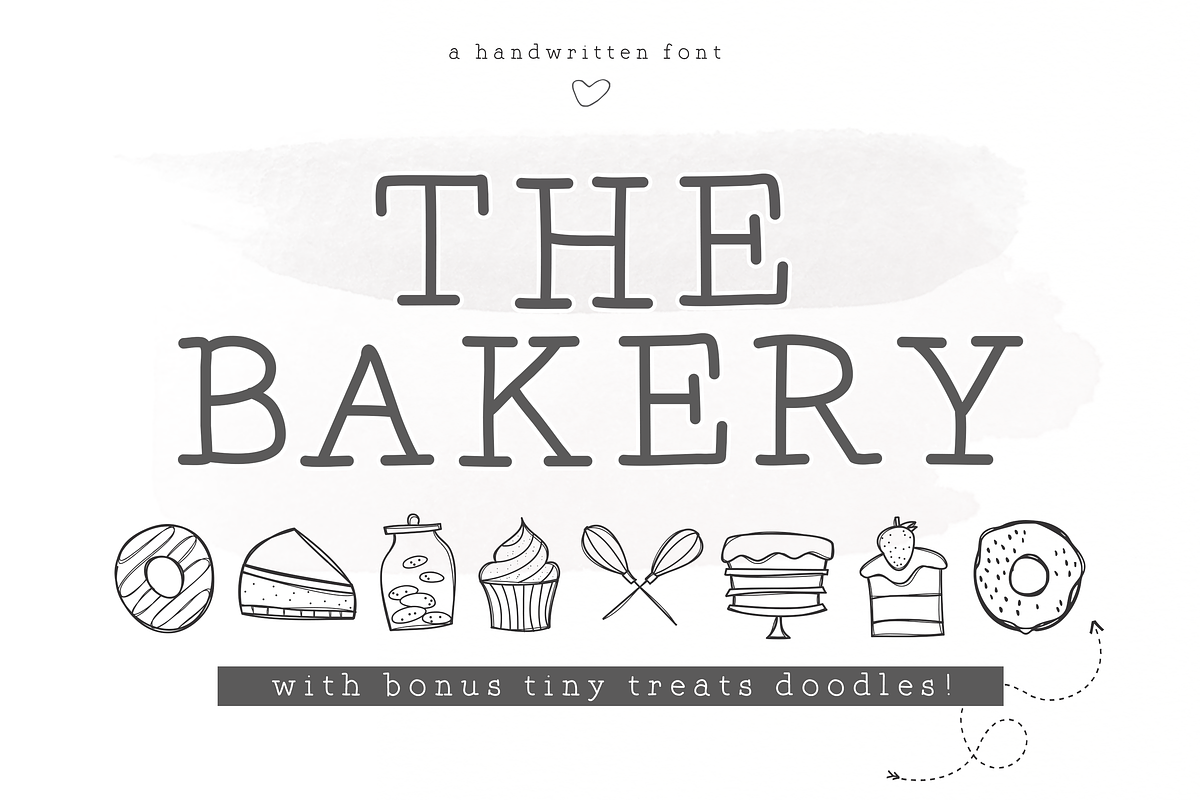
The Bakery - Serif and Doodle Font Free Download
The Bakery - Serif and Doodle Font Free Download is a charming and playful font duo that combines a classic serif with whimsical doodles. The serif font provides a clean, traditional look, while the doodle elements add fun and creativity to your designs. This combination is perfect for branding, packaging, invitations, logos, social media graphics, and any project that requires a warm, inviting, and lighthearted touch.
Using the The Bakery - Serif and Doodle Font Free Download adds a cozy, handcrafted vibe to your typography. Whether you're working on a bakery logo, creating playful wedding invitations, or designing fun promotional materials, this font duo brings both elegance and personality to your work.